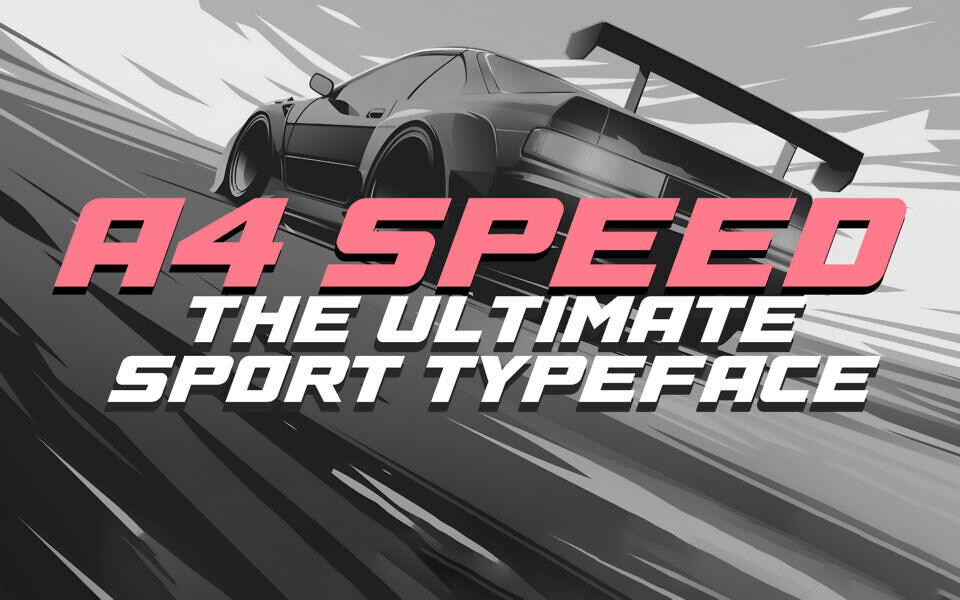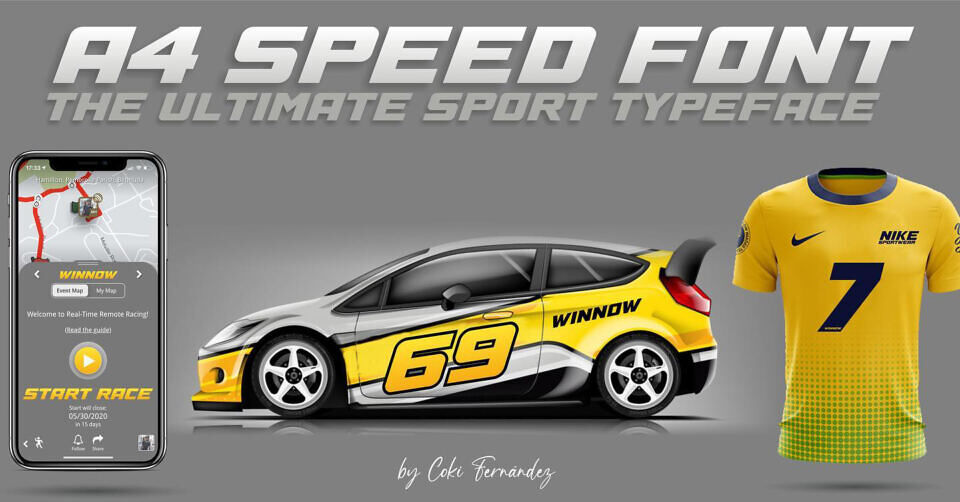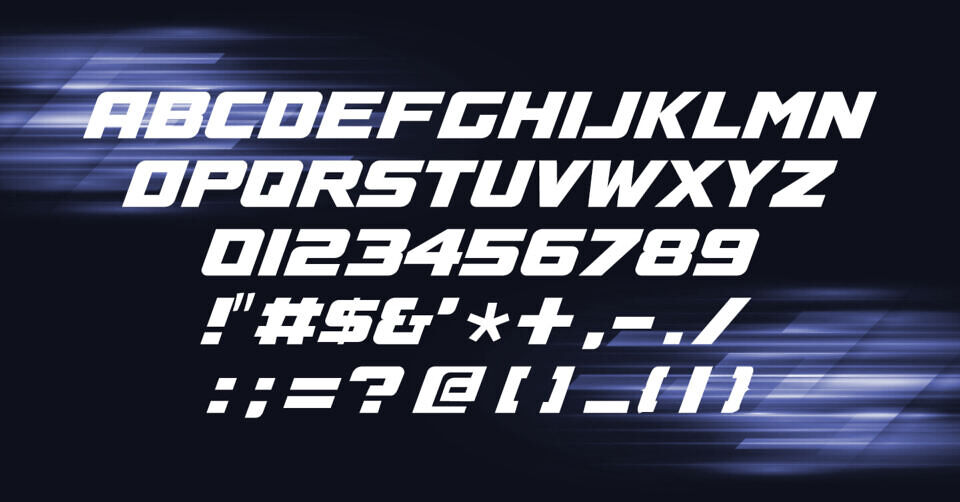
A4 Speed is a bold techno display font designed by Coki Fernandez, featuring sharp angles, futuristic shapes, and a strong sense of motion. Its dynamic letterforms evoke speed, racing, and high-performance themes, making it ideal for automotive designs, gaming titles, posters, and digital graphics. With a modern, edgy style, it stands out in headlines and logos while maintaining clear readability.